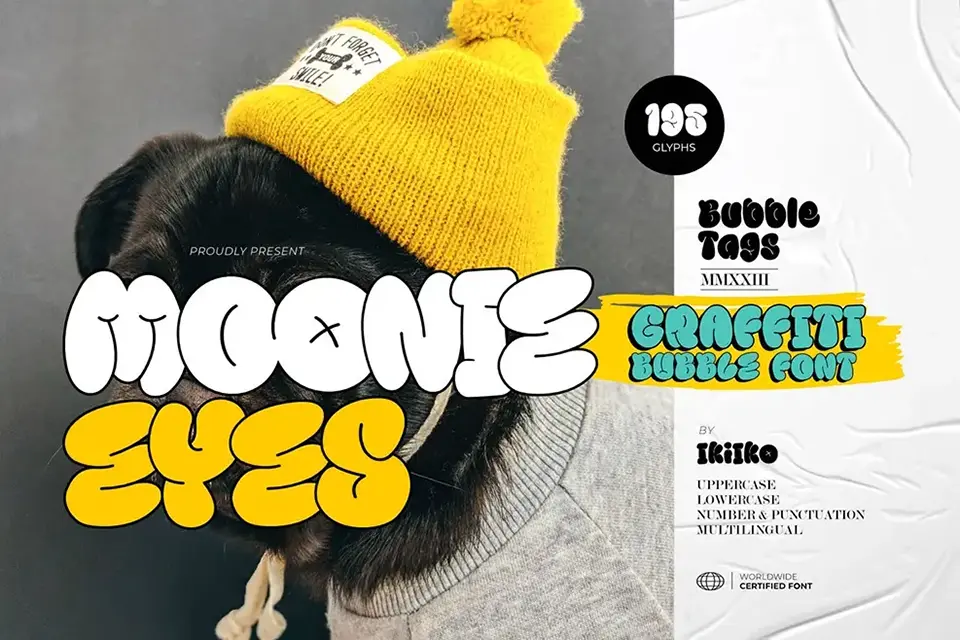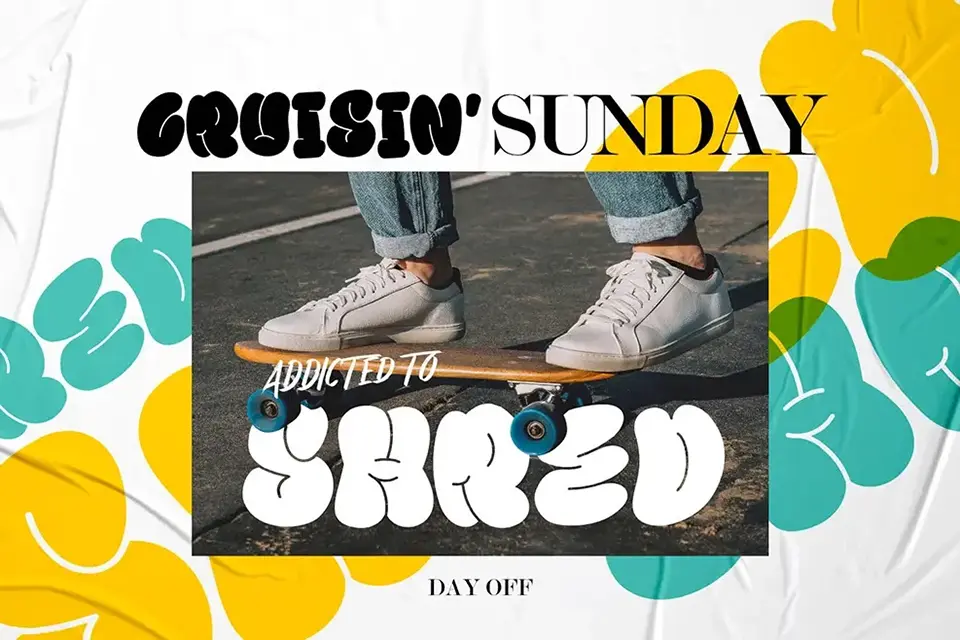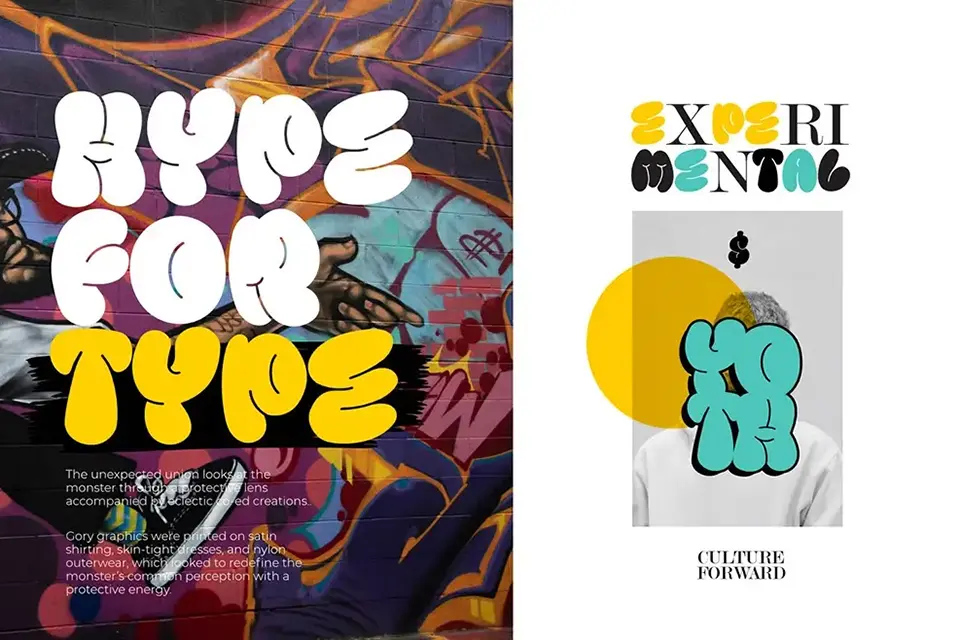
Moonie Eyes Font
Moonie Eyes is a playful, bubble-style graffiti font with spontaneous curves and rounded characters inspired by street art markings. Featuring bold, whimsical letters that stack and overlap, this handwritten typeface is perfect for streetwear branding, posters, magazine layouts, fashion designs, and eye-catching headlines. The font’s distinctive thick strokes and cartoonish appearance make it ideal for children’s books, packaging designs, and creative projects requiring a fun, contemporary aesthetic that stands out with its uniform heavy weight and soft edges.